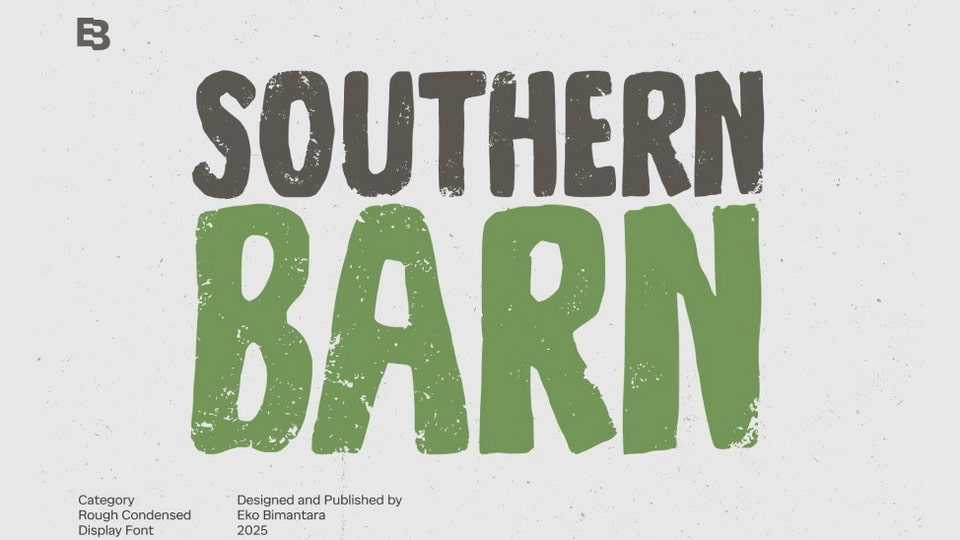
Download Southern Barn font, a bold, rough condensed display typeface that captures the rustic charm and earthy warmth with its textured, handcrafted look and sturdy letterforms.